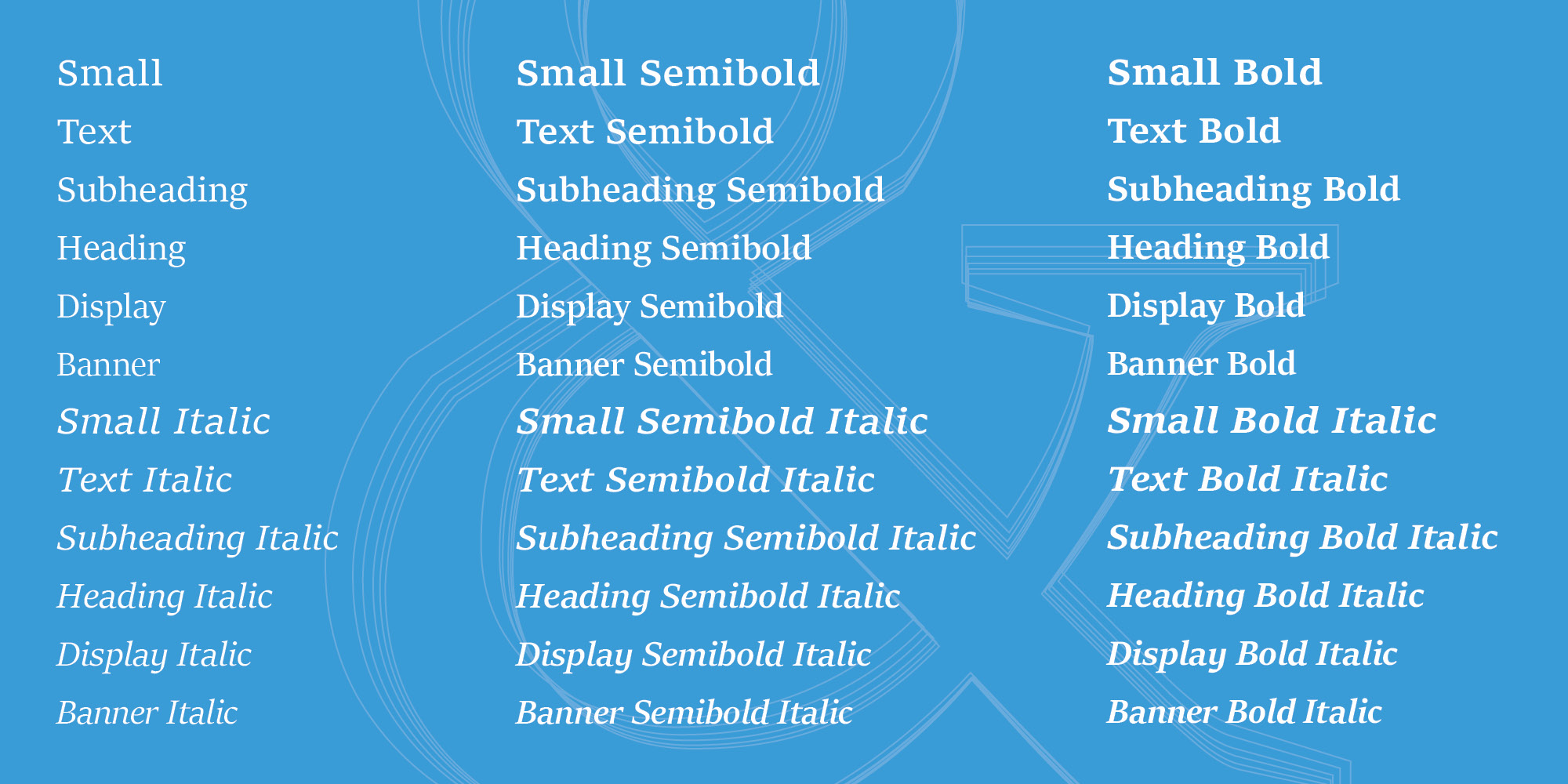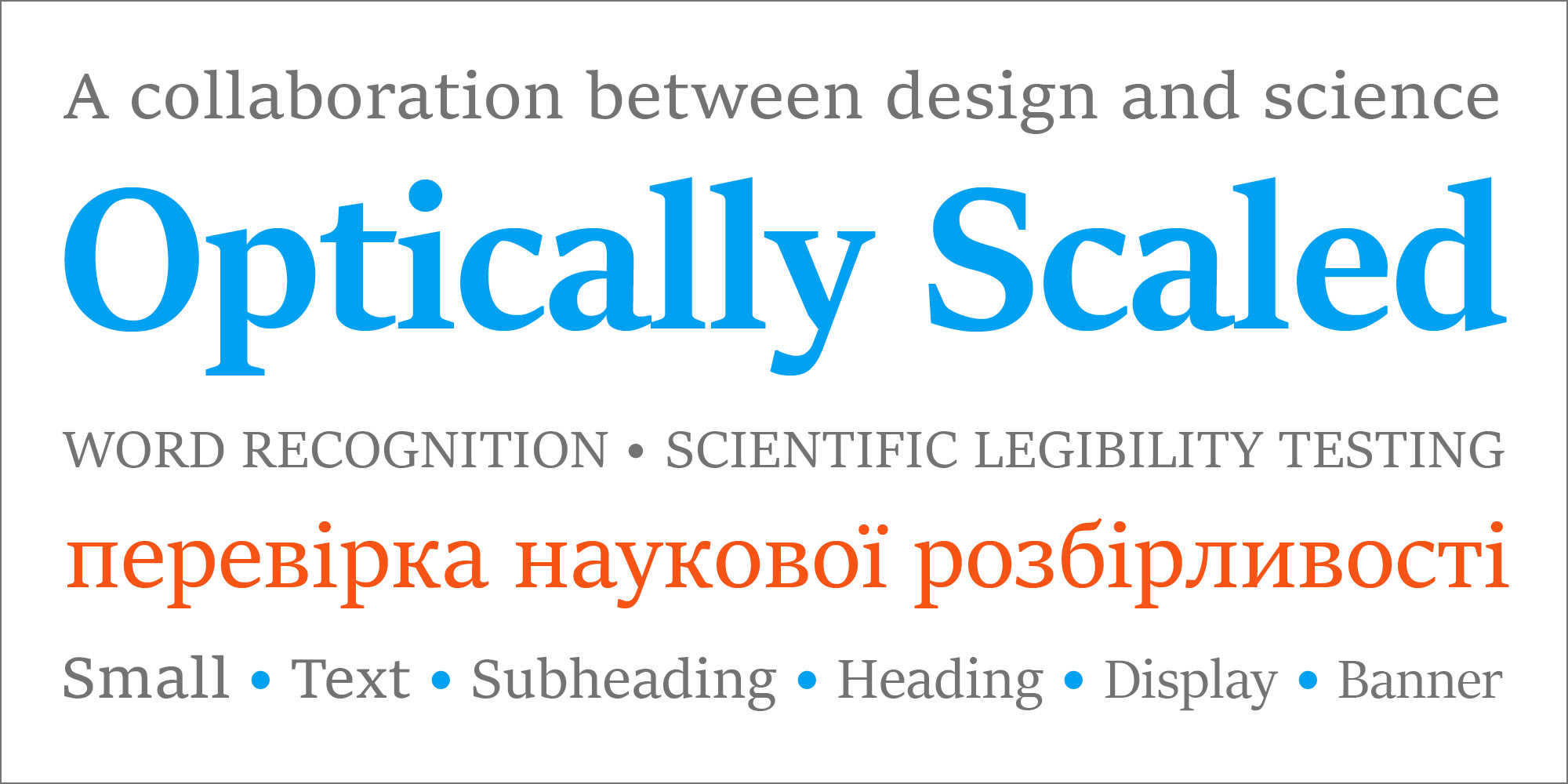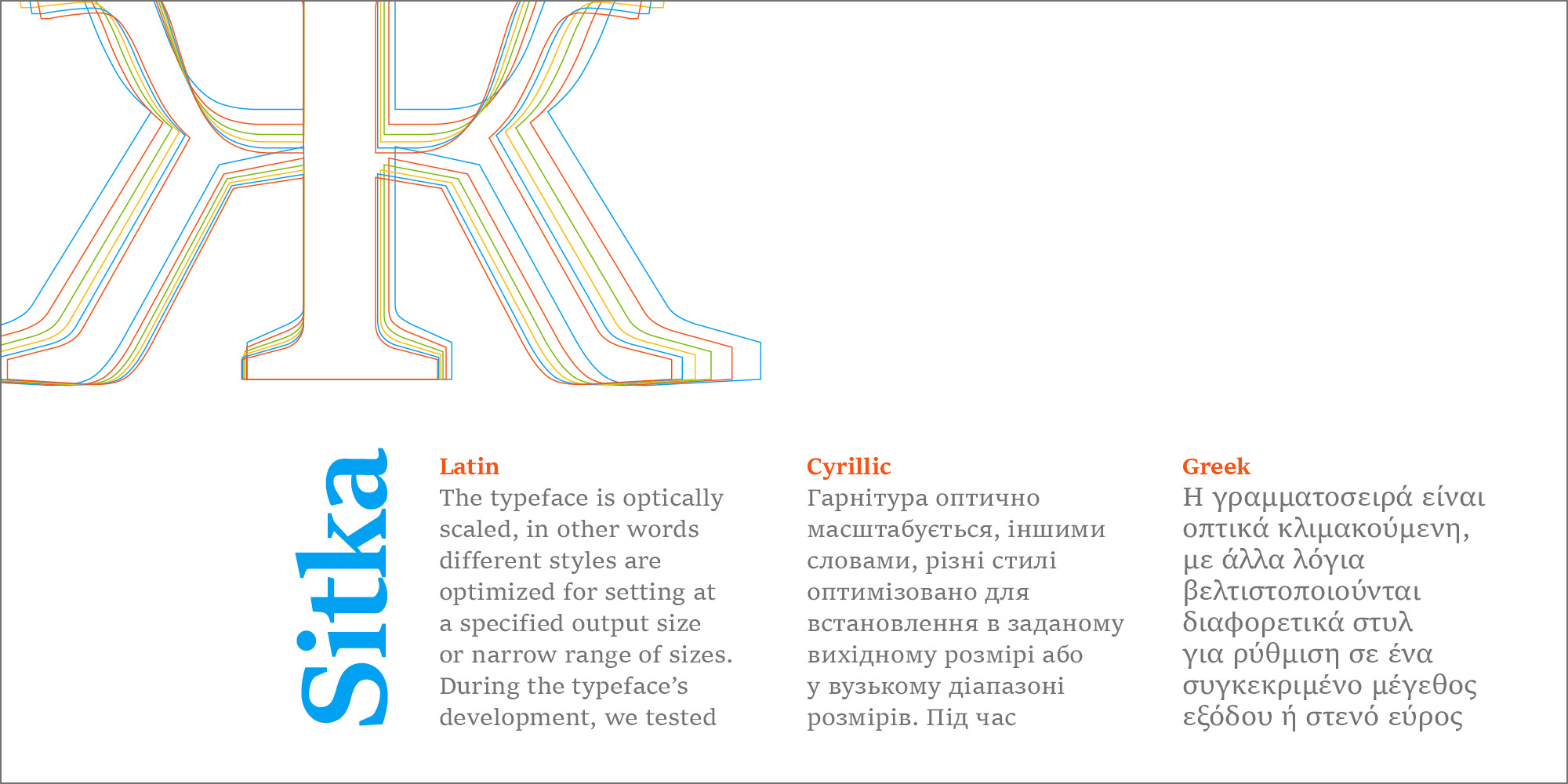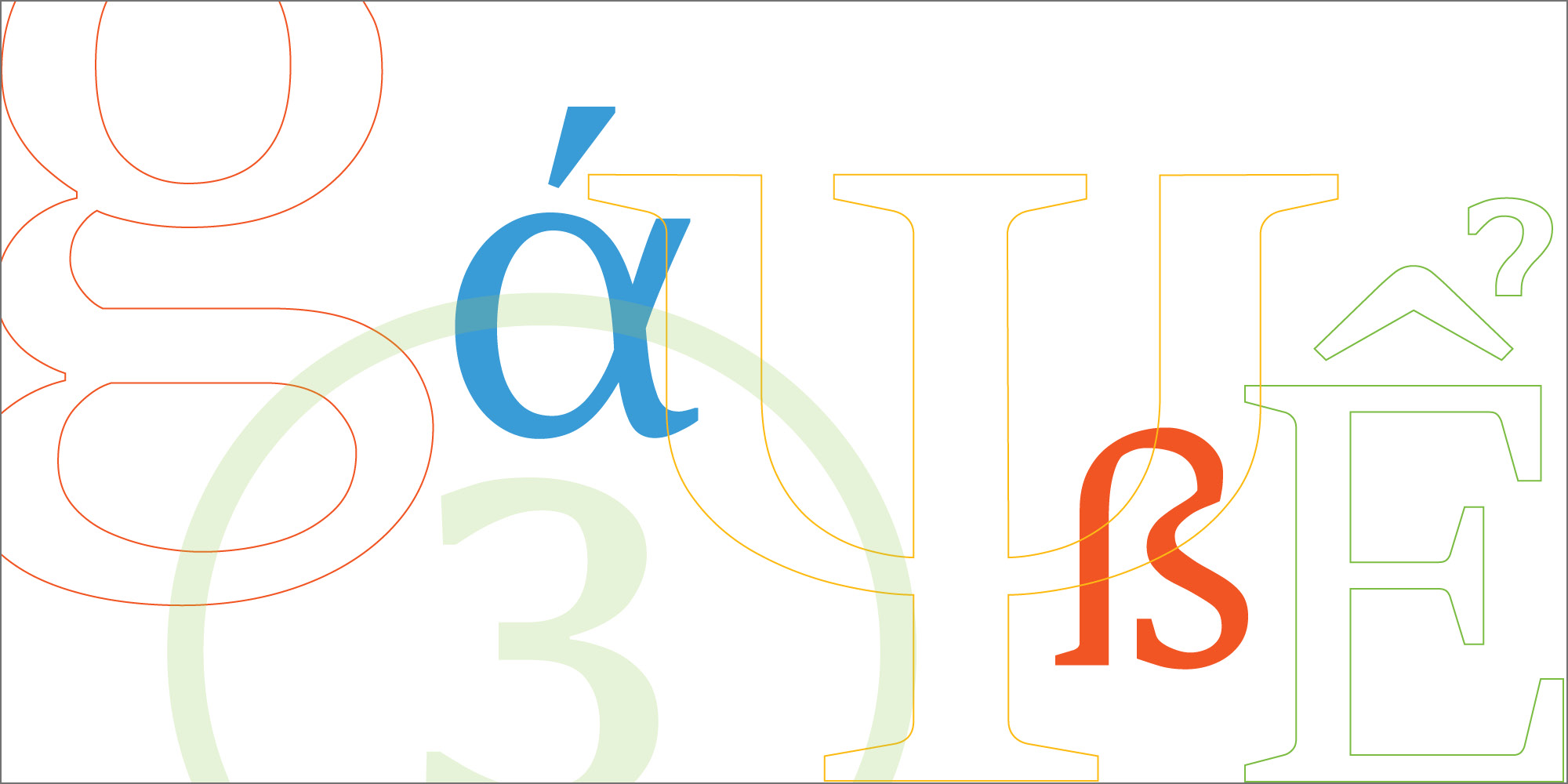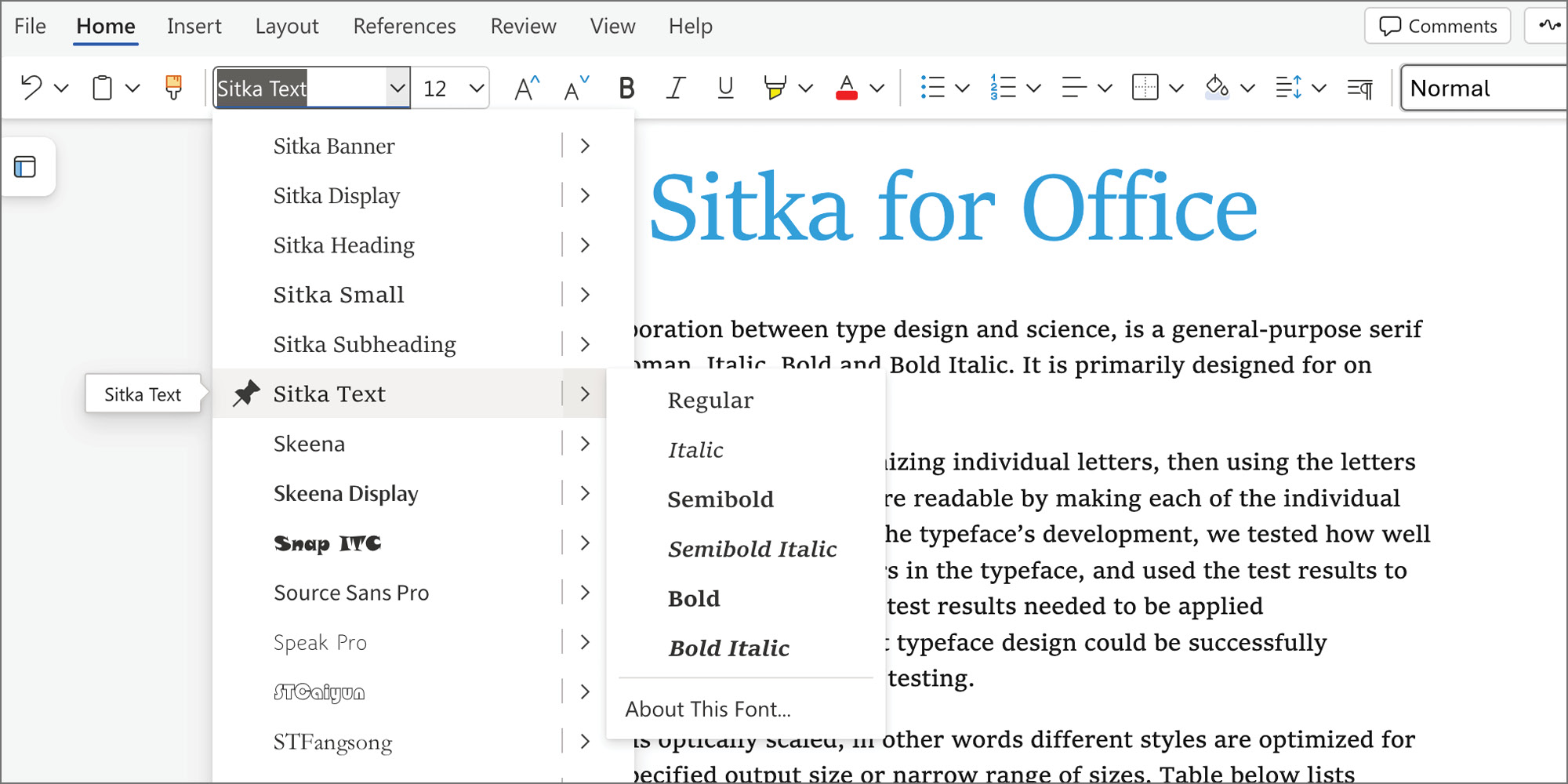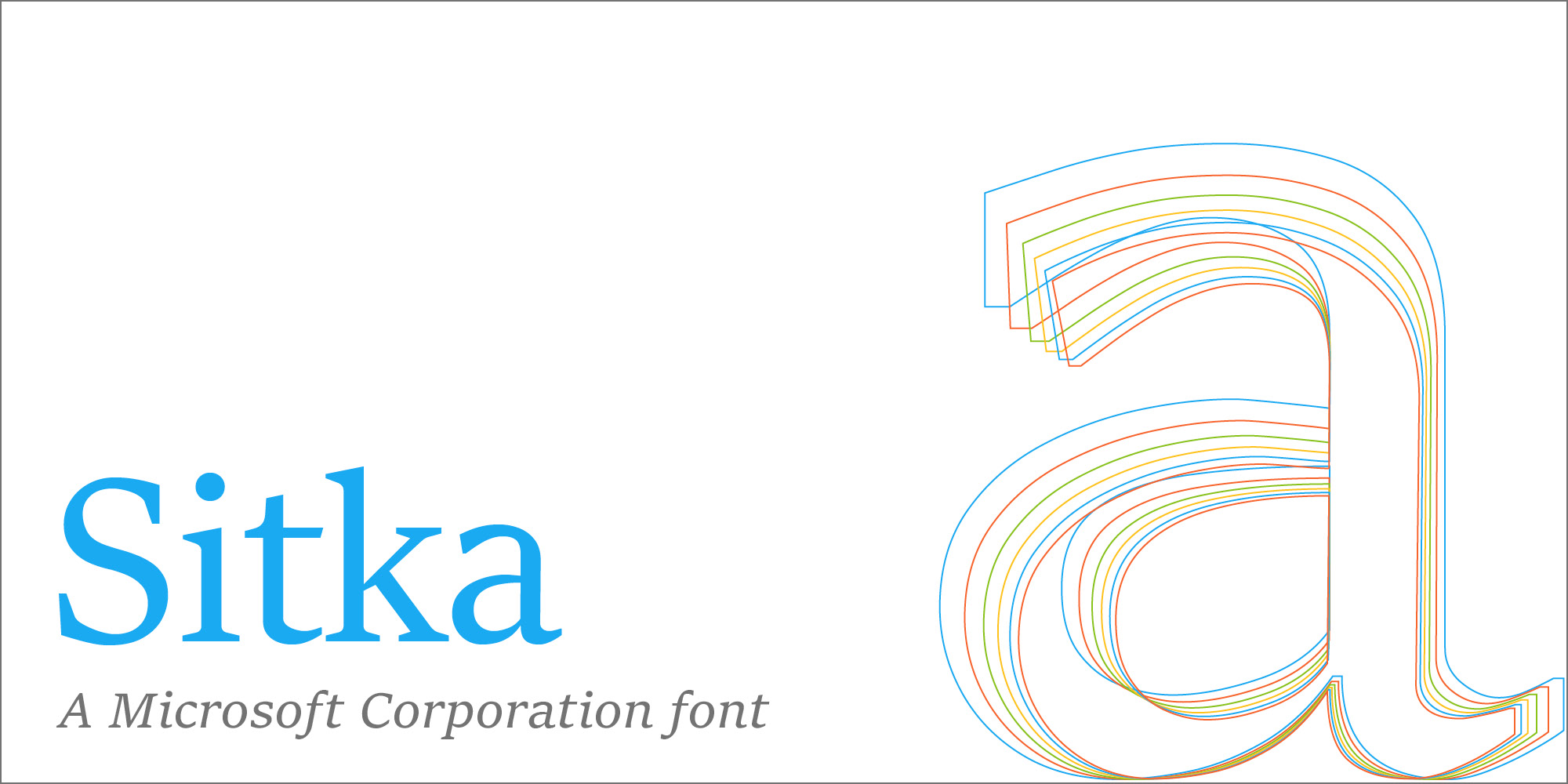
Sitka, a collaboration between type design and science, is a general-purpose serif typeface of Roman, Italic, Bold and Bold Italic. It is primarily designed for on screen use.
We recognize words by first recognizing individual letters, then using the letters to build a word [Larson, 2004; Rayner 'et.al', 2012]. Words become more readable by making each of the individual letters more recognizable. During the typeface’s development, we tested how well people could read each of the letters in the typeface, and used the test results to inform design decisions. While the test results needed to be applied conscientiously, we discovered that typeface design could be successfully integrated with scientific legibility testing.
The typeface is optically scaled, in other words different styles are optimized for setting at a specified output size or narrow range of sizes. Table below lists recommended sizes for different styles.
Style | Size range |
---|---|
Sitka Small | 0-9.5pt |
Sitka Text | 9.5-13.5pt |
Sitka Subheading | 13.5-18.5pt |
Sitka Heading | 18.5-23.5pt |
Sitka Display | 23.5-27.5pt |
Sitka Banner | 27.5-∞ |
Designers | Matthew Carter |
Font vendor | Tiro Typeworks Ltd. and Carter & Cone, for Microsoft Corporation. |